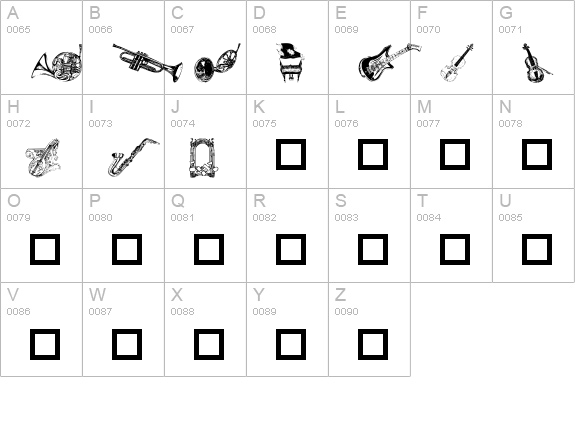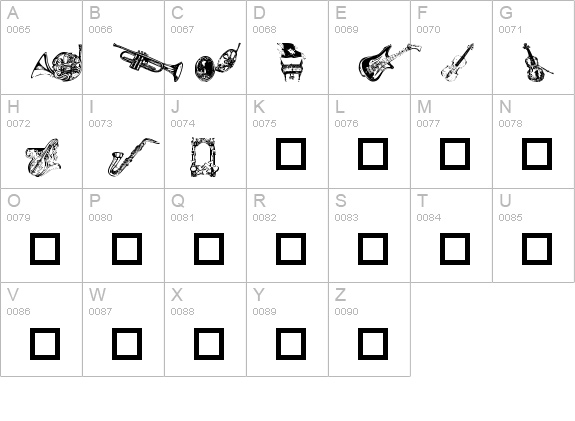
Destiny's Music Dings Font Details
Destiny's Music Dings font is a whimsical and charming typeface that brings a touch of musical magic to your designs. This delightful font features a collection of musical notes, instruments, and other music-related symbols, perfect for adding a melodic flair to your projects. With its playful and unique design, Destiny's Music Dings font is sure to capture the attention of your audience and bring a sense of fun and creativity to your work. Best of all, Destiny's Music Dings font is available for free download at FontsMarket.com! Whether you're a musician, music lover, or simply looking to add a musical touch to your designs, this font is a fantastic choice. Download Destiny's Music Dings font today and let your creativity sing!